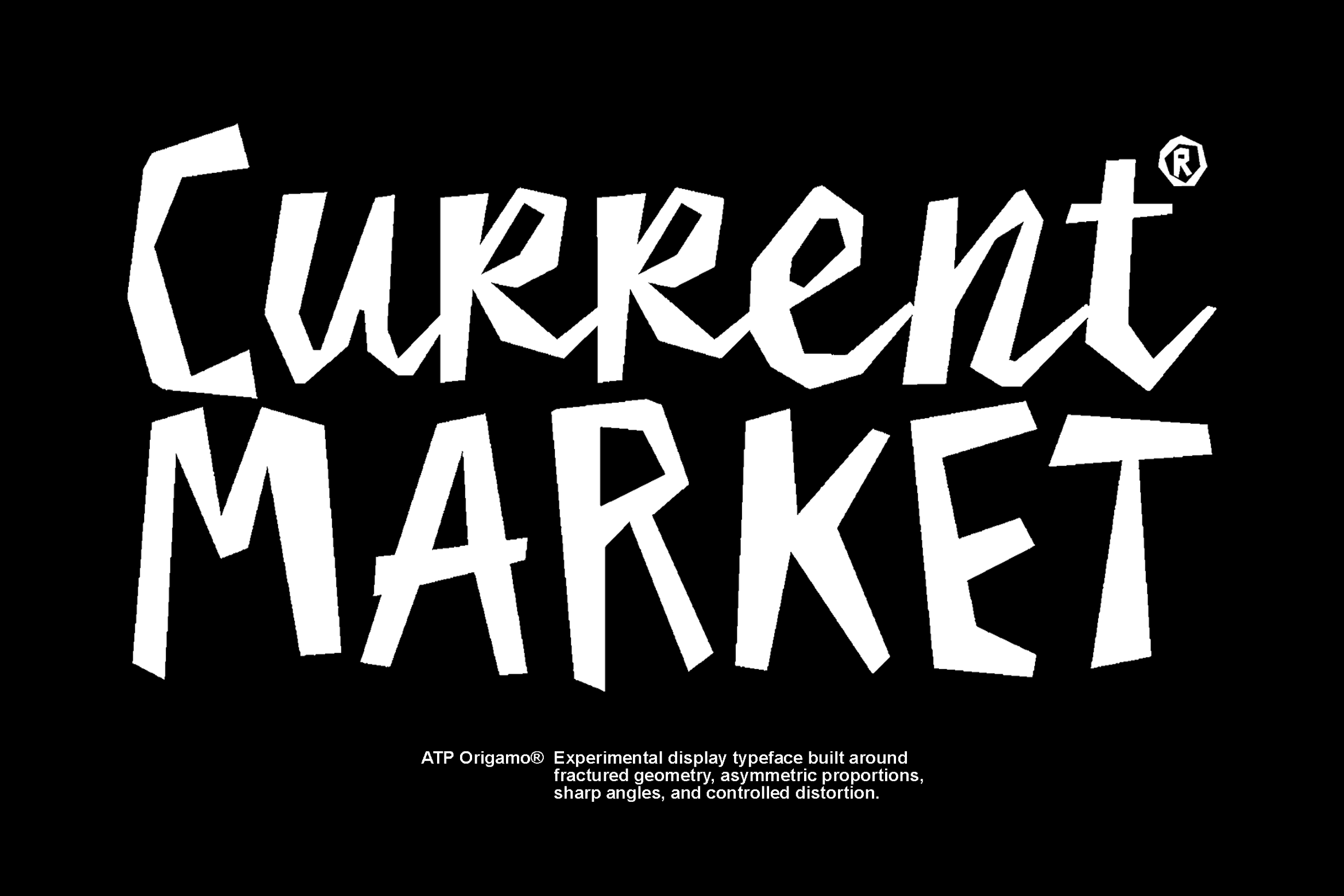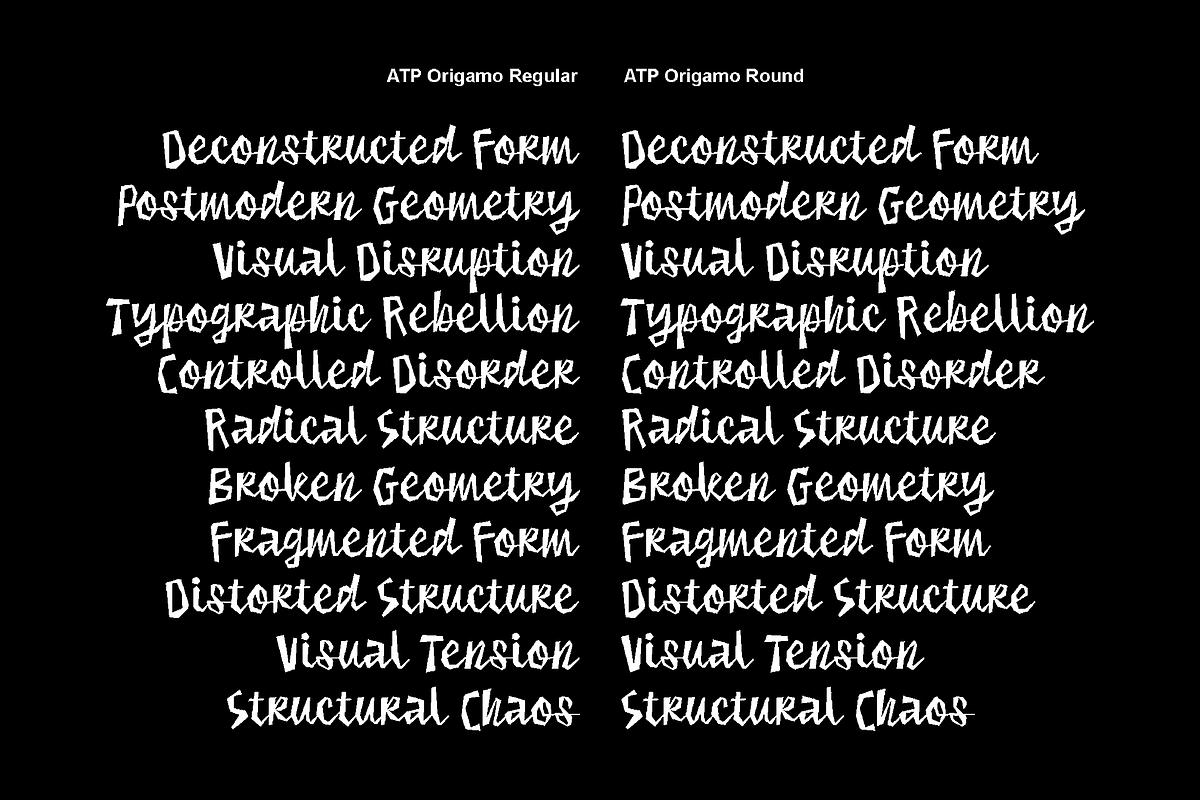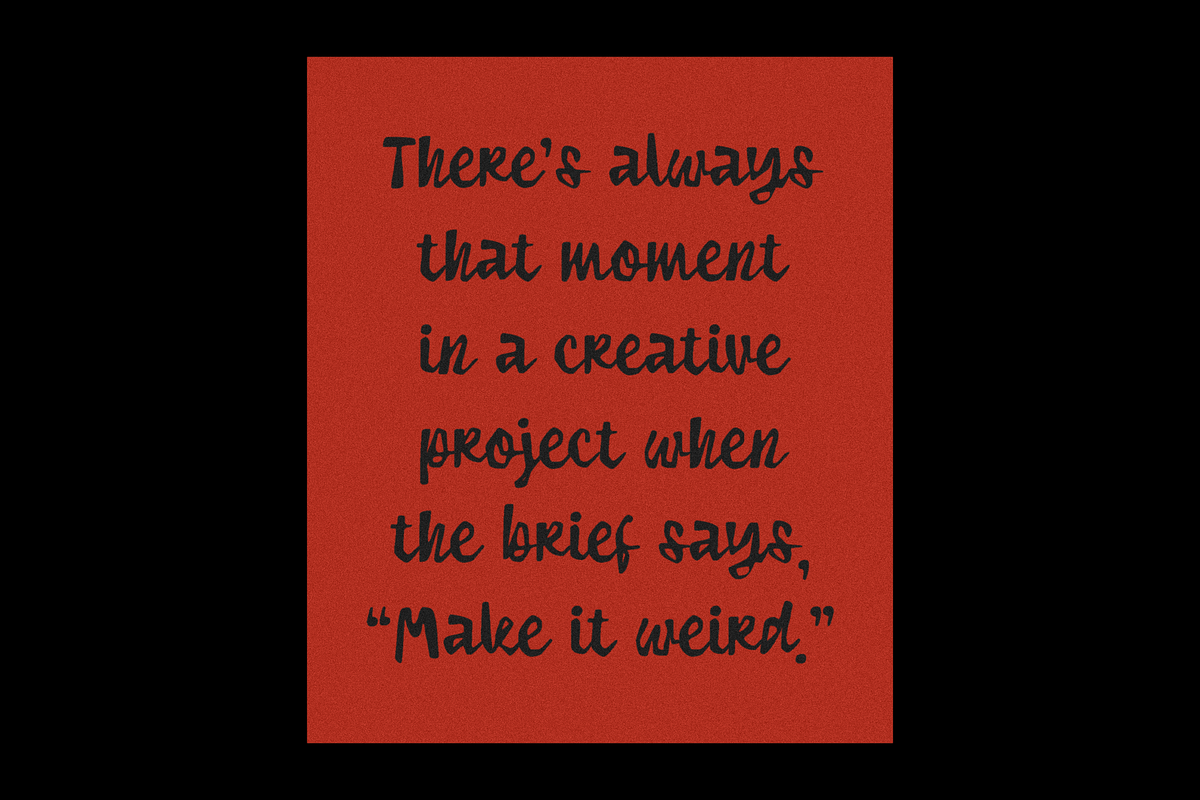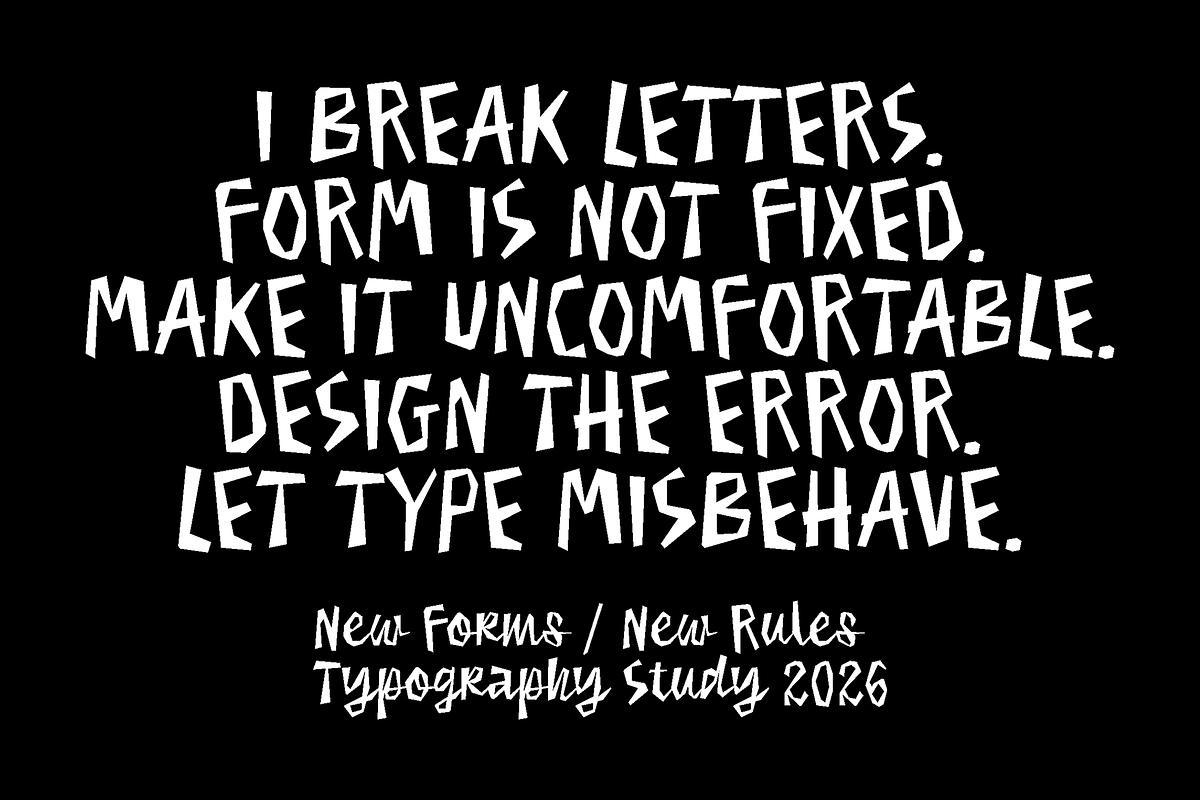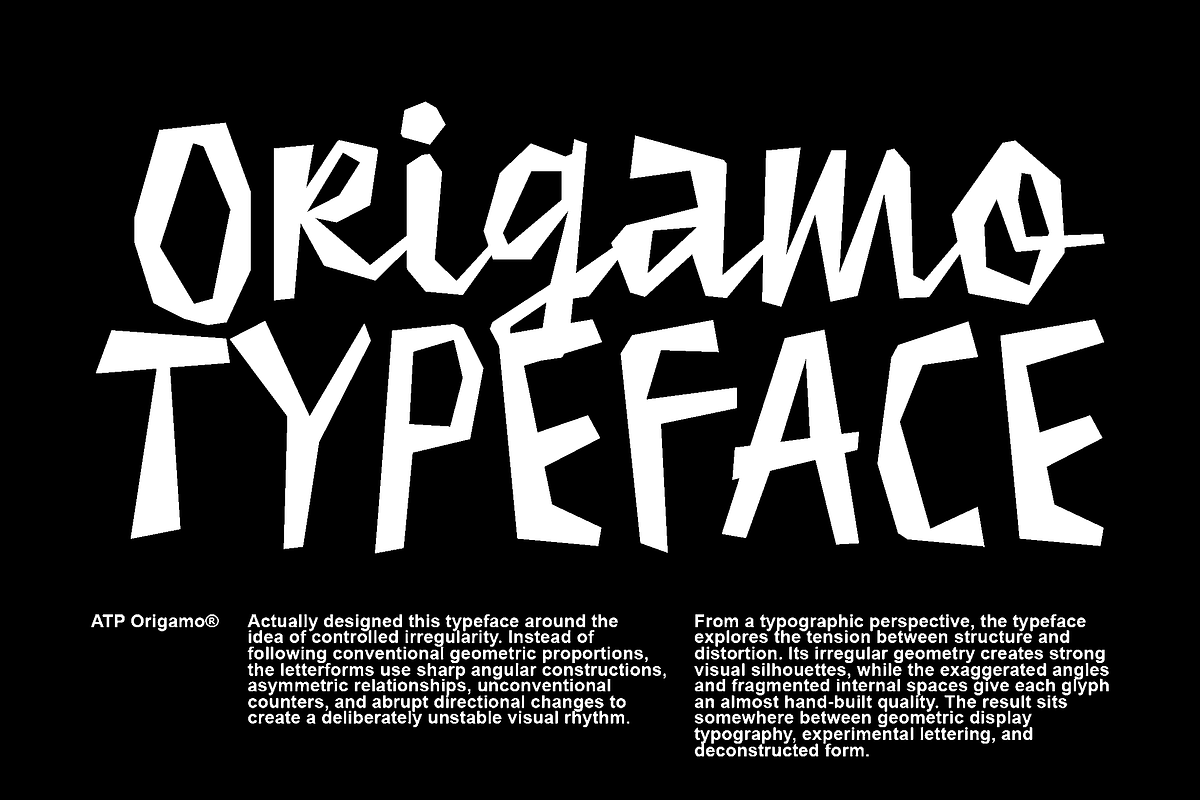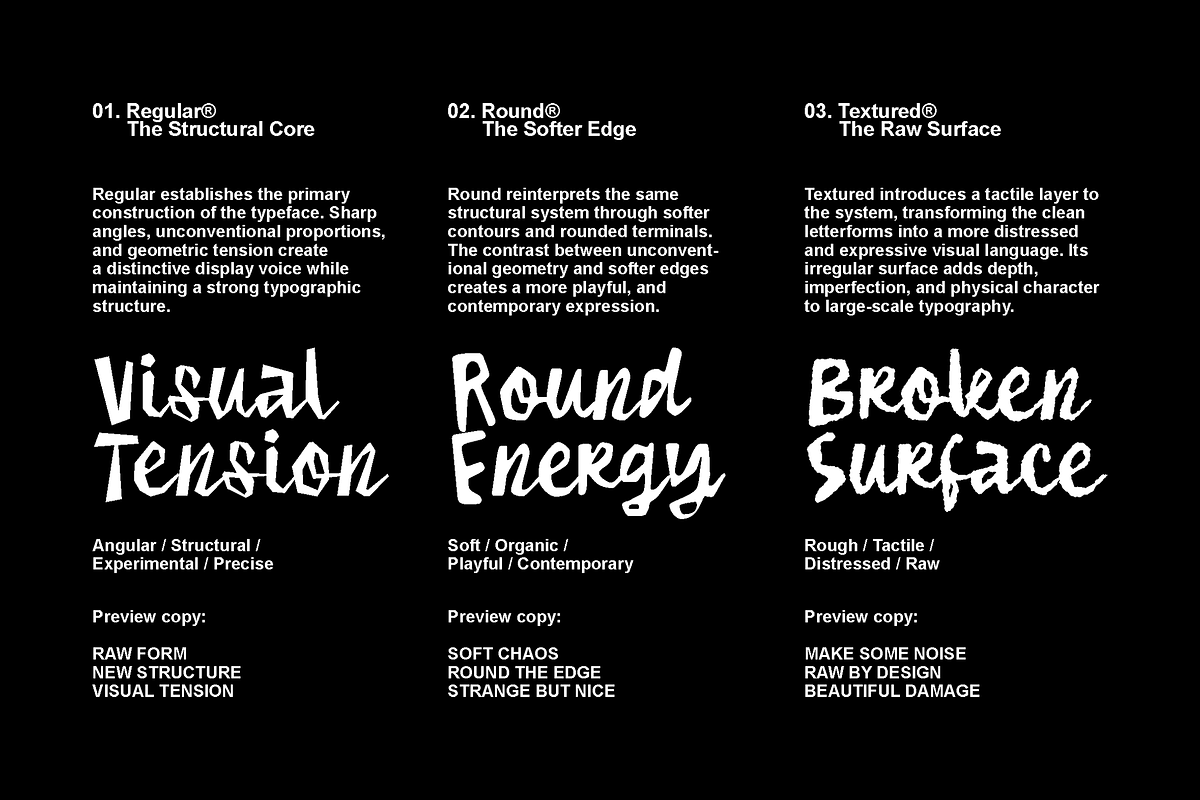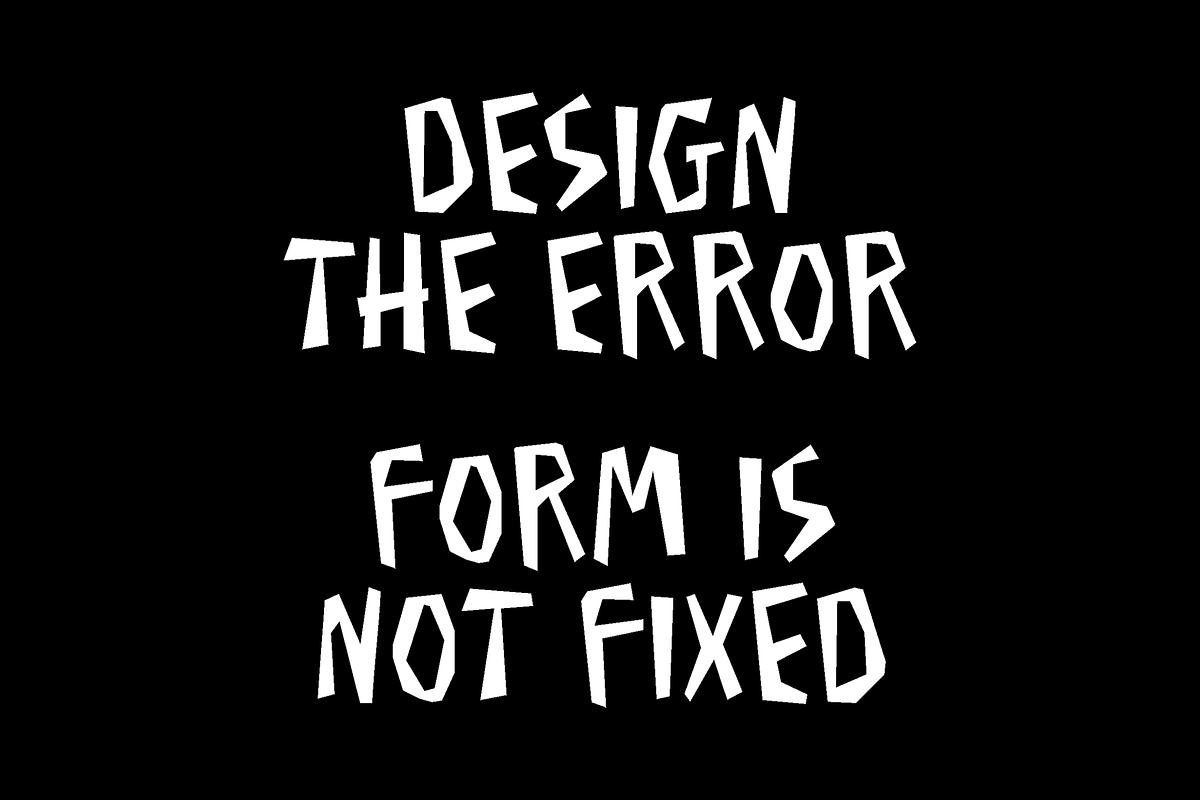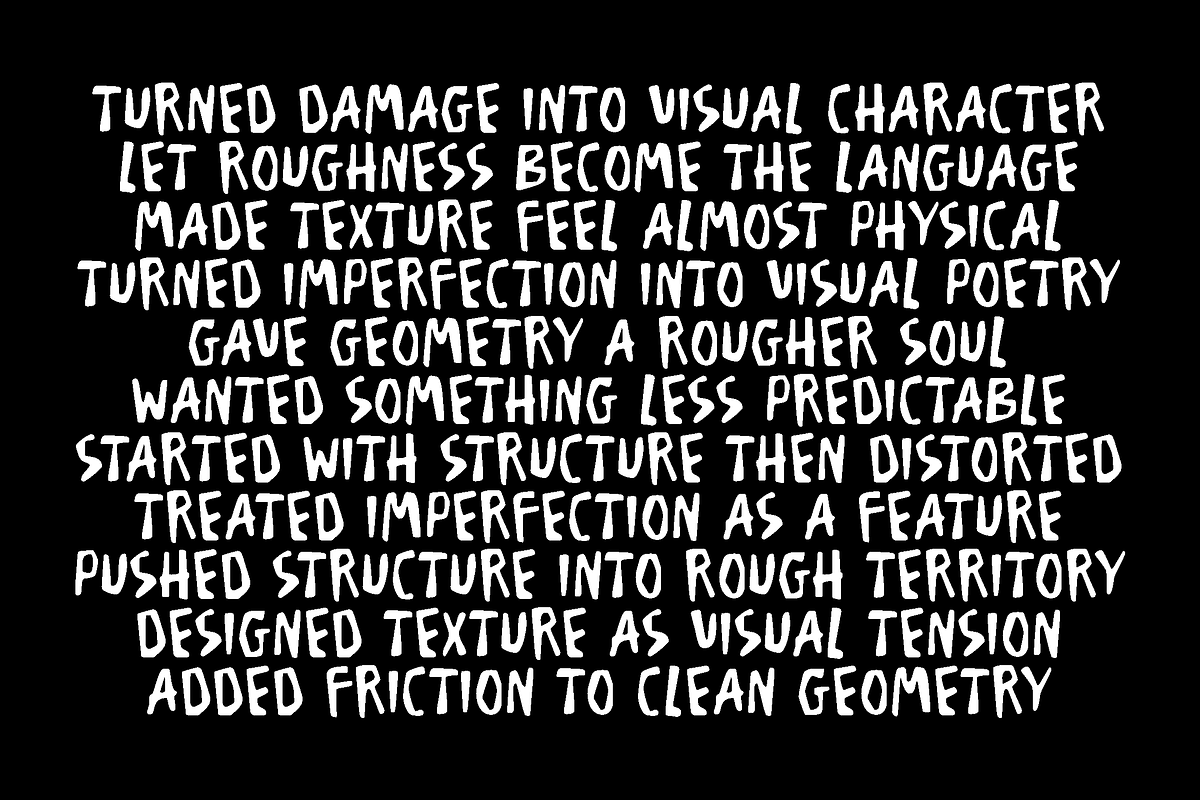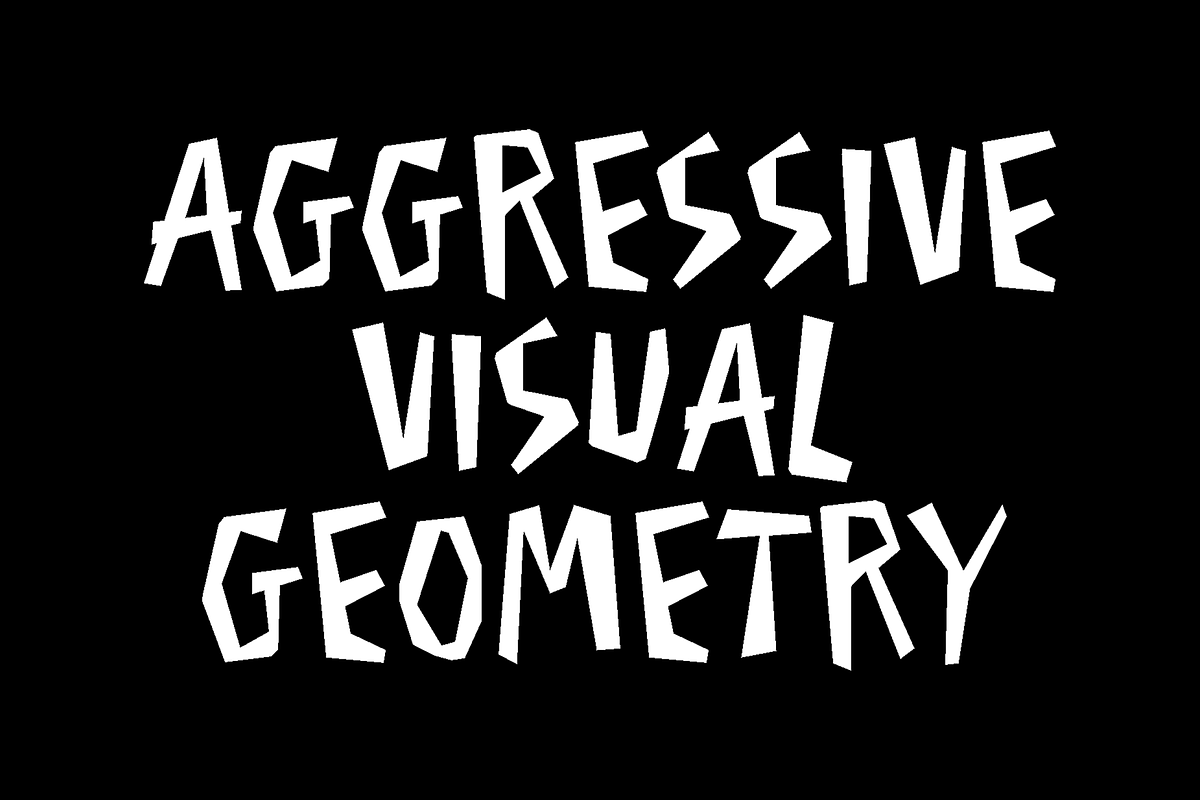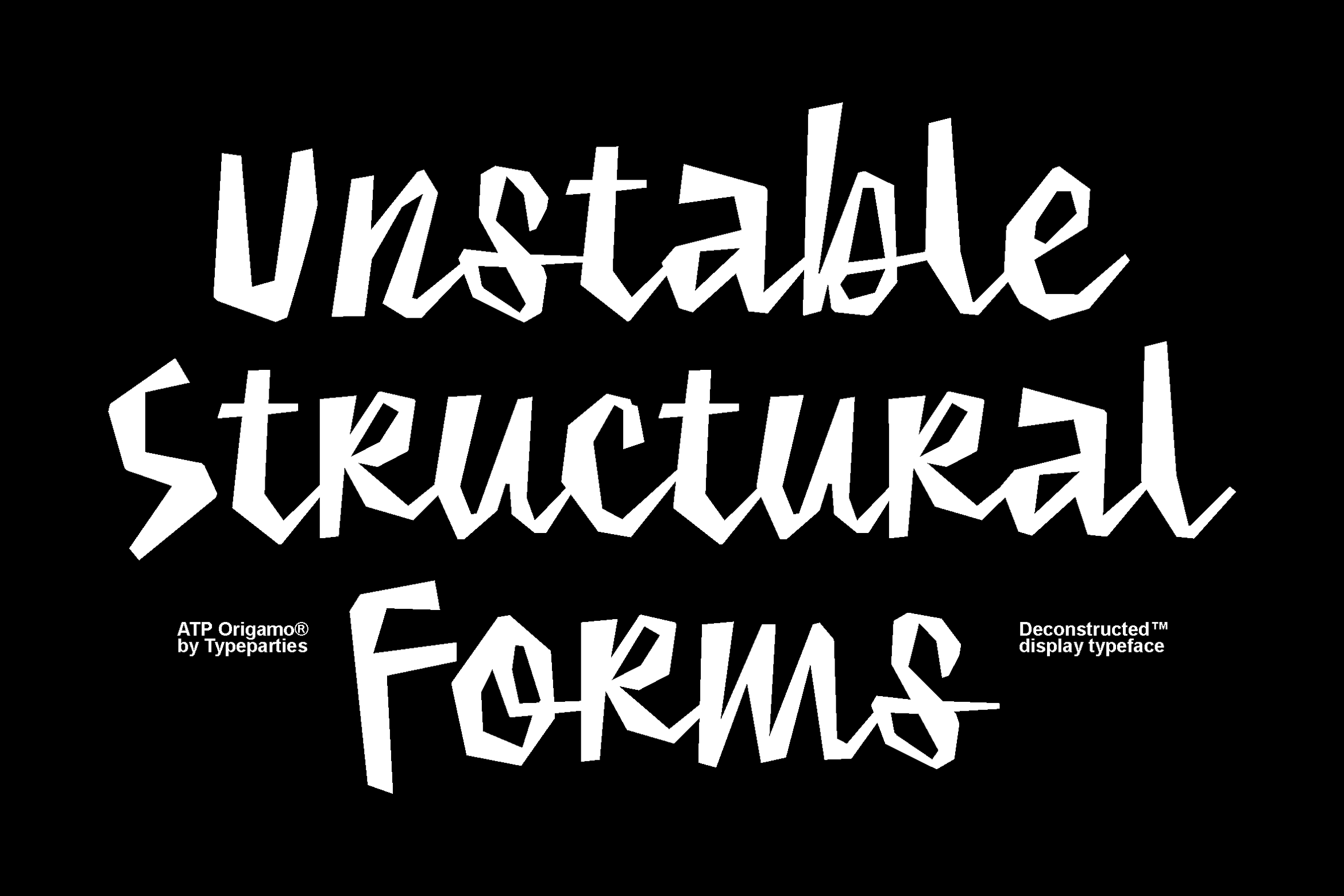
Origamo - Experimental Script Font
This typeface explores the visual tension between geometric construction and expressive distortion. Its letterforms are built from sharp angular segments, irregular proportions, and fractured contours, creating a deliberately unstable typographic rhythm. The structural language feels almost hand-cut or deconstructed, while maintaining enough visual consistency to function as a display typeface.
Its exaggerated terminals, asymmetric shapes, and unconventional counters give the typeface a raw, experimental character. Rather than following conventional typographic harmony, it embraces visual disruption, irregularity, and controlled distortion.
The result is a bold experimental display font designed for moments that need attitude. It works especially well across music posters, fashion graphics, editorial layouts, album artwork, streetwear branding, alternative identities, zines, and contemporary art direction.